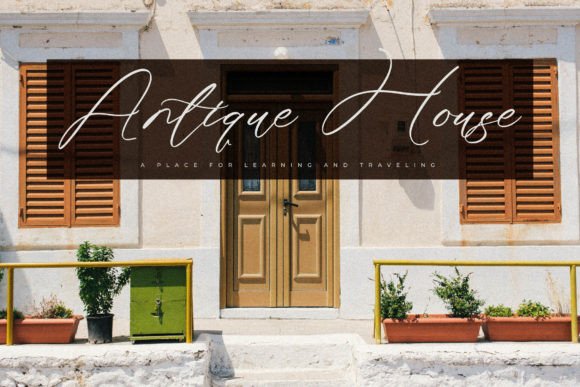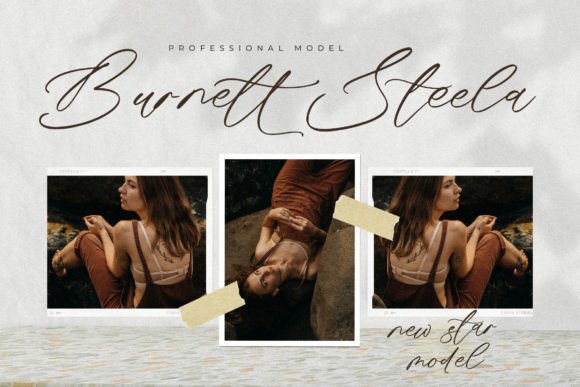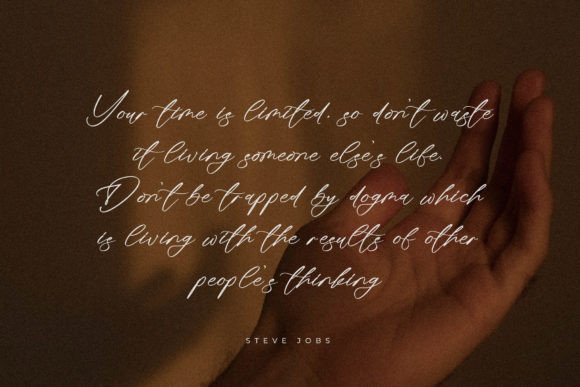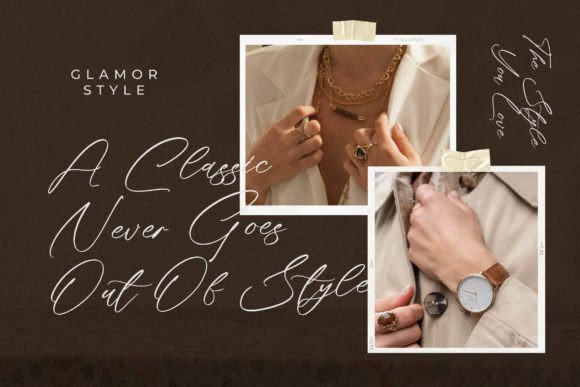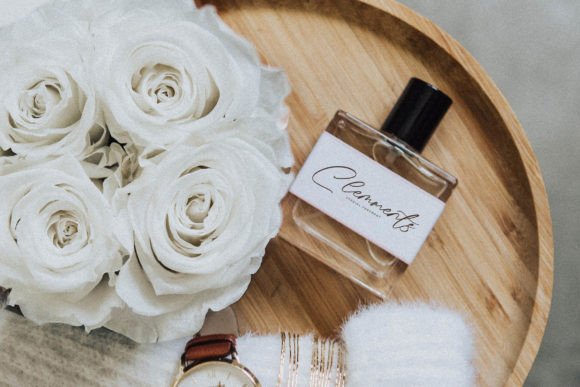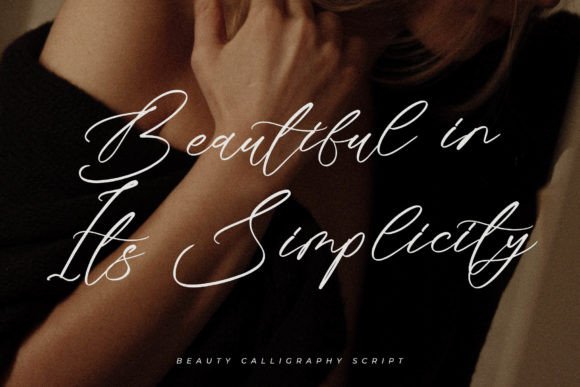
Introduction to Monsttreal Font
As a designer, have you ever stumbled upon a font that perfectly captures the essence of your creative vision? I know I have. It’s that moment when everything falls into place, and your design comes alive. For me, that moment happened when I discovered the beautiful Monsttreal Font. Its delicate script and elegant feel instantly caught my attention, and I knew I had to learn more about it.
Monsttreal Font is a high-quality design resource that offers a refreshing twist to traditional script fonts. Its transparent background and free download option make it an ideal choice for designers looking to add a personal touch to their creative projects. Whether you’re working on a branding project, a wedding invitation, or a social media campaign, Monsttreal Font is sure to elevate your design to the next level.
Key Features of Monsttreal Font
- Unique blend of high-quality, bold, and playful typography, making it perfect for creative projects and designs.
- With its bold and playful style, Monsttreal Font is perfect for designing eye-catching graphics, logos, and typography for various design projects.
Honest Review: Monsttreal Font
I recently had the chance to work with the Monsttreal Font for a creative project, and I must say, I was quite impressed. As a designer, I’m always on the lookout for high-quality fonts that can elevate my work, and Monsttreal Font definitely delivers.
- Unique design style: Monsttreal Font has a distinctive look that can add a touch of personality to any design project.
- High-quality vectors: The font’s vector format makes it perfect for scaling up or down without losing any quality.
- Limited character set: Monsttreal Font doesn’t have a complete character set, which can make it difficult to use for complex text-based projects.
- Not ideal for small text: Due to its unique design style, Monsttreal Font may not be the best choice for small text, as it can be difficult to read.
Overall, I’m quite impressed with Monsttreal Font, and I would definitely consider using it again for the right project. Just be aware of its limitations, and you’ll be all set for a successful design project with a transparent background and a unique touch.
Tips for Getting the Most Out of Monsttreal Font
Experiment with different font sizes, colors, and alignments to achieve a unique look. Combine the Monsttreal Font with other design elements, such as images or shapes, to create a visually appealing design. Use the font in conjunction with a transparent background to add depth and dimension to your design.
The Monsttreal Font is ideal for a variety of creative projects, including social media graphics, presentations, and marketing materials. Its high-quality aesthetic and unique features make it a valuable design resource, perfect for free download and use in a range of applications.